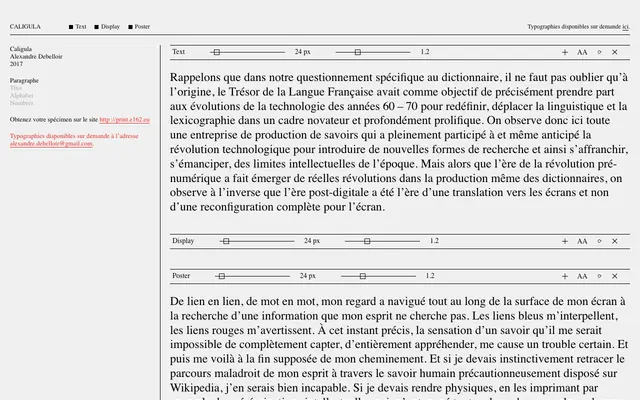
Caligula
E162 · Alexandre Debelloir · 2017
A three-grade serif by Alexandre Debelloir, designed in 2017 with distinct cuts for text, display and poster settings.
Designed by Alexandre Debelloir and released through the French foundry E162 in 2017, Caligula spans three optical grades — Text, Display and Poster — each tuned for its intended size range. The character set runs to 245 glyphs, covering standard Latin. Specimens and licences are available on request directly from the foundry.
Caligula is presented in three optical grades — Text, Display and Poster — suggesting a serif designed with optical size in mind, typical of a classical or transitional serif lineage adapted for contemporary use across scales.